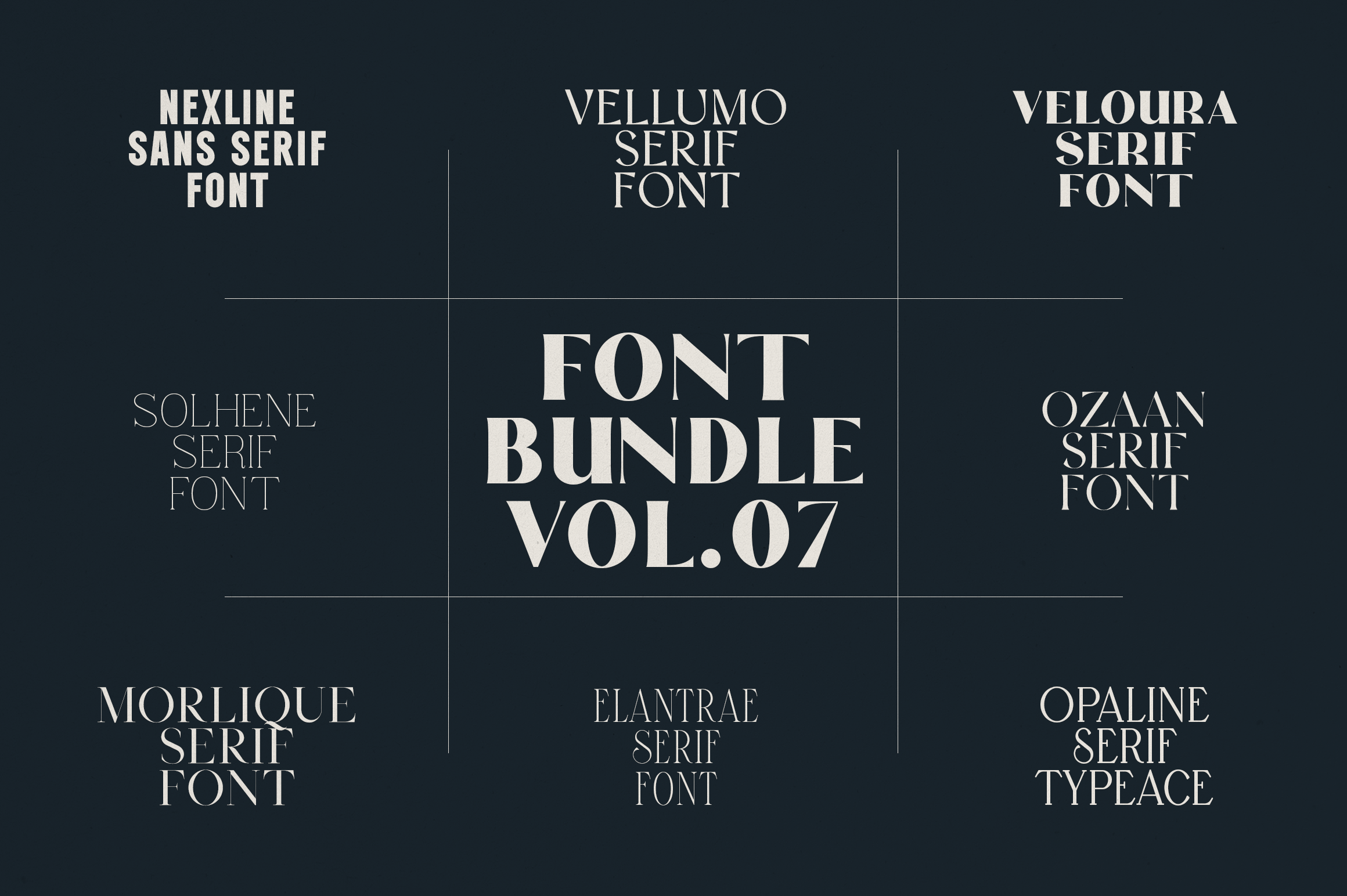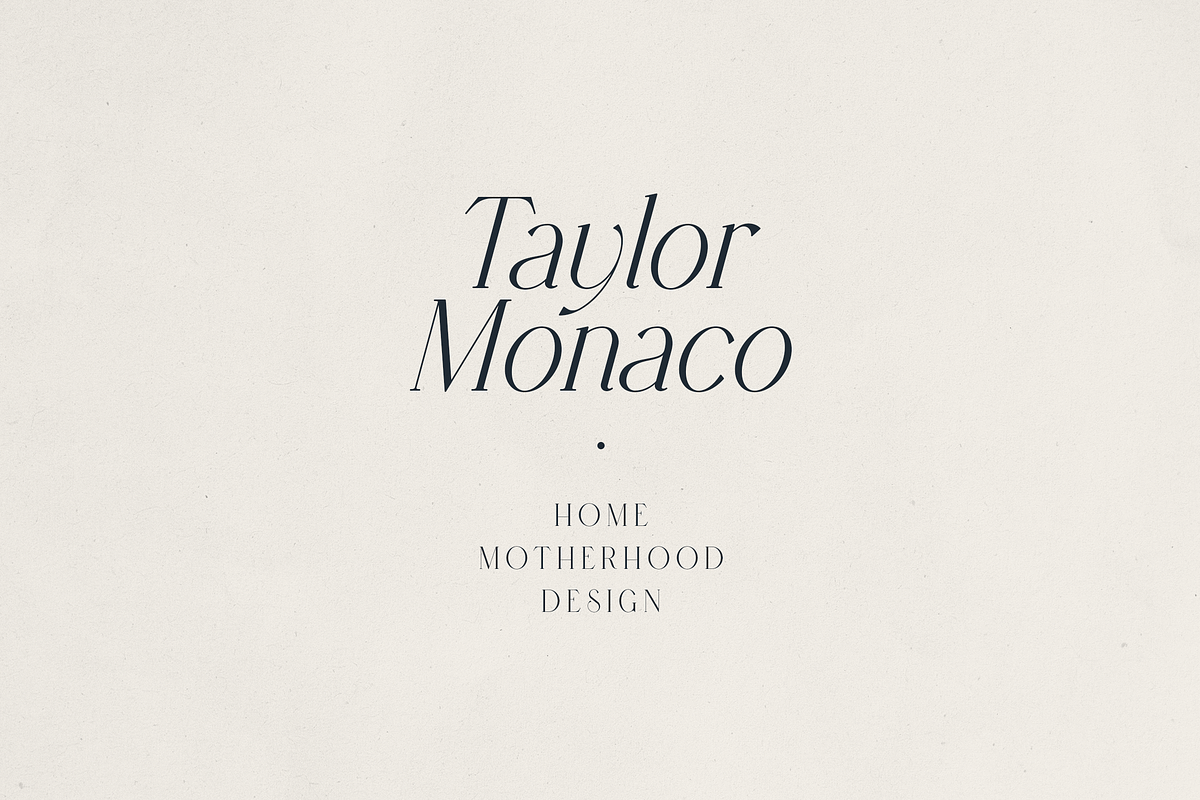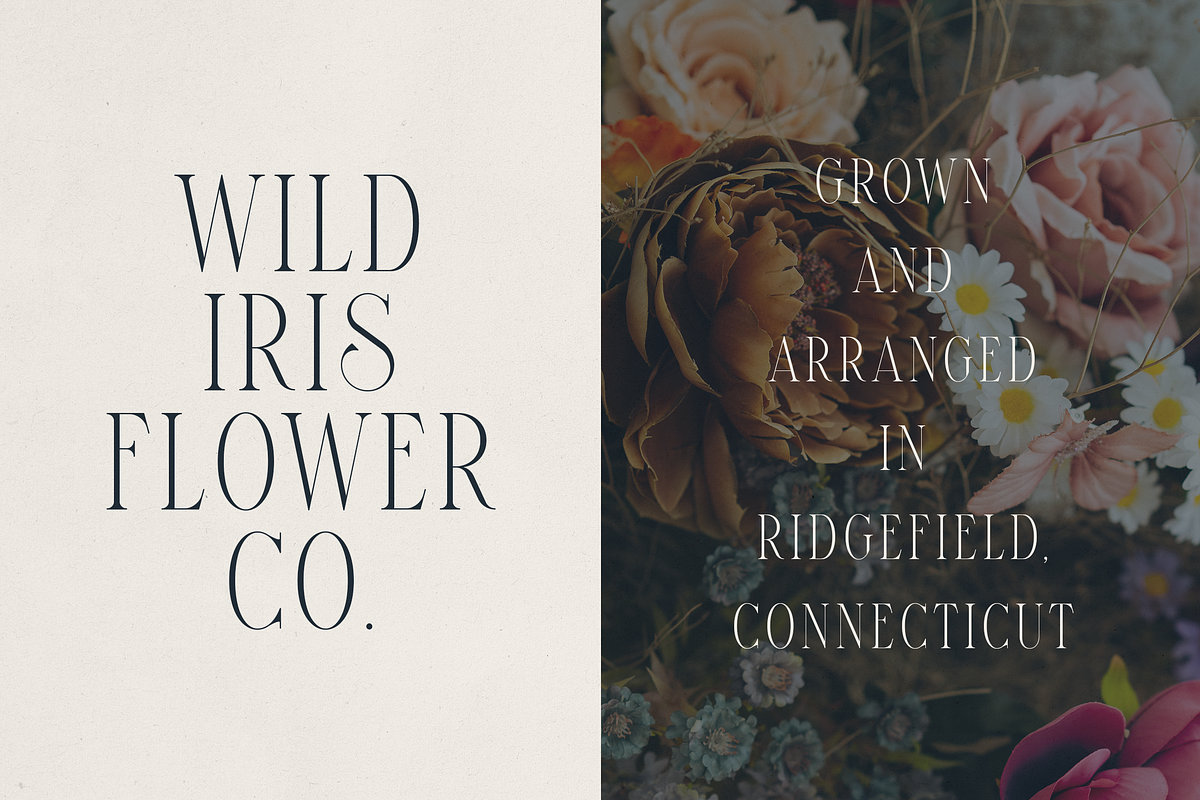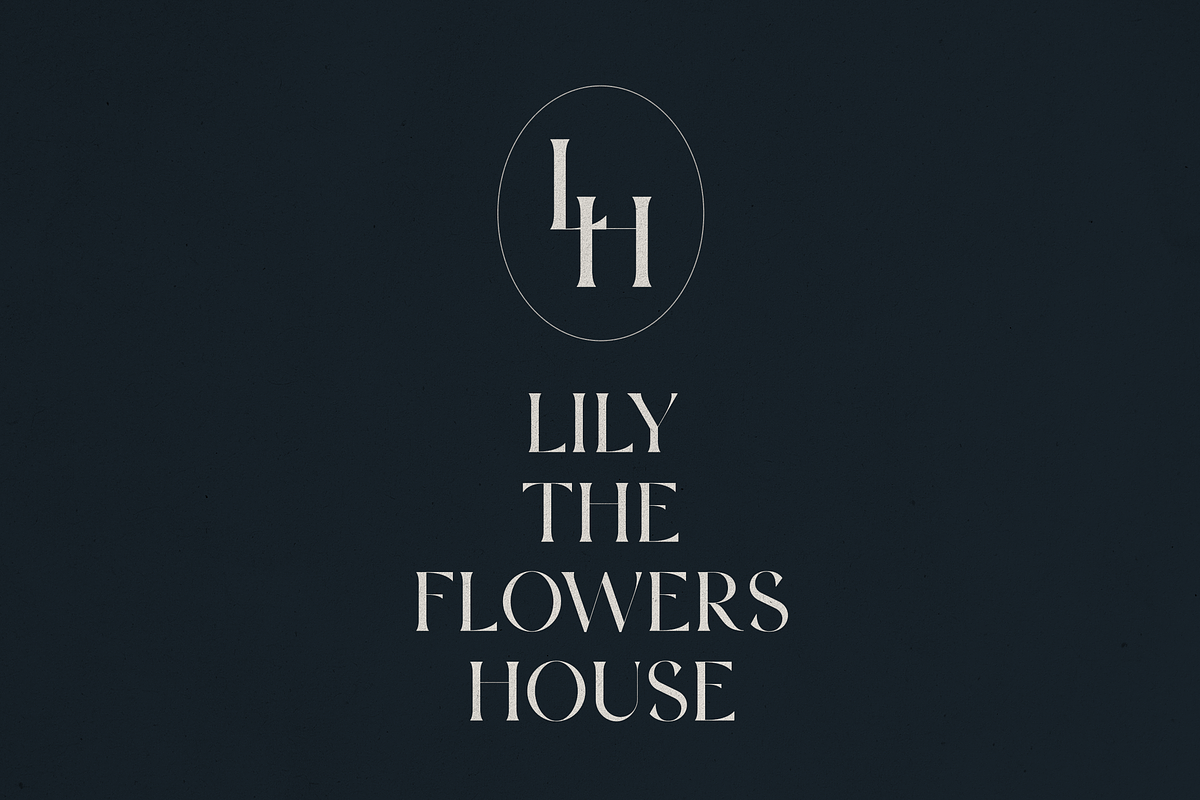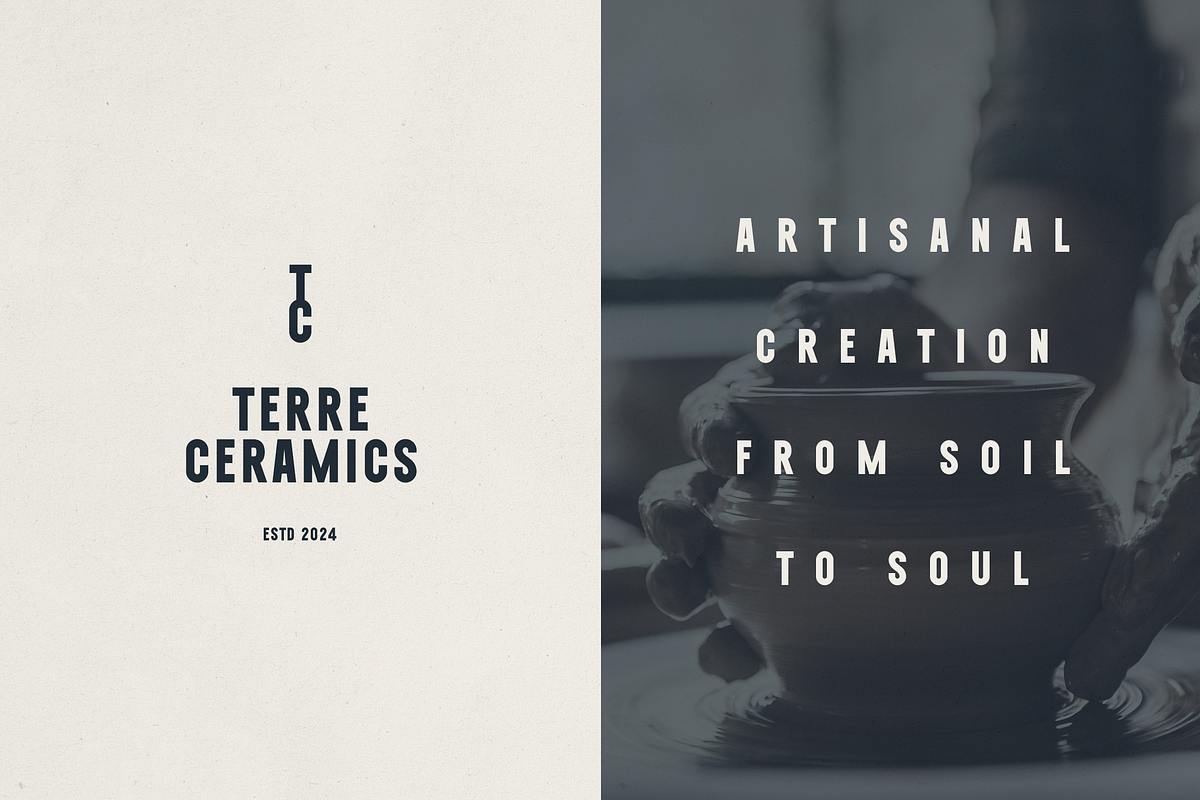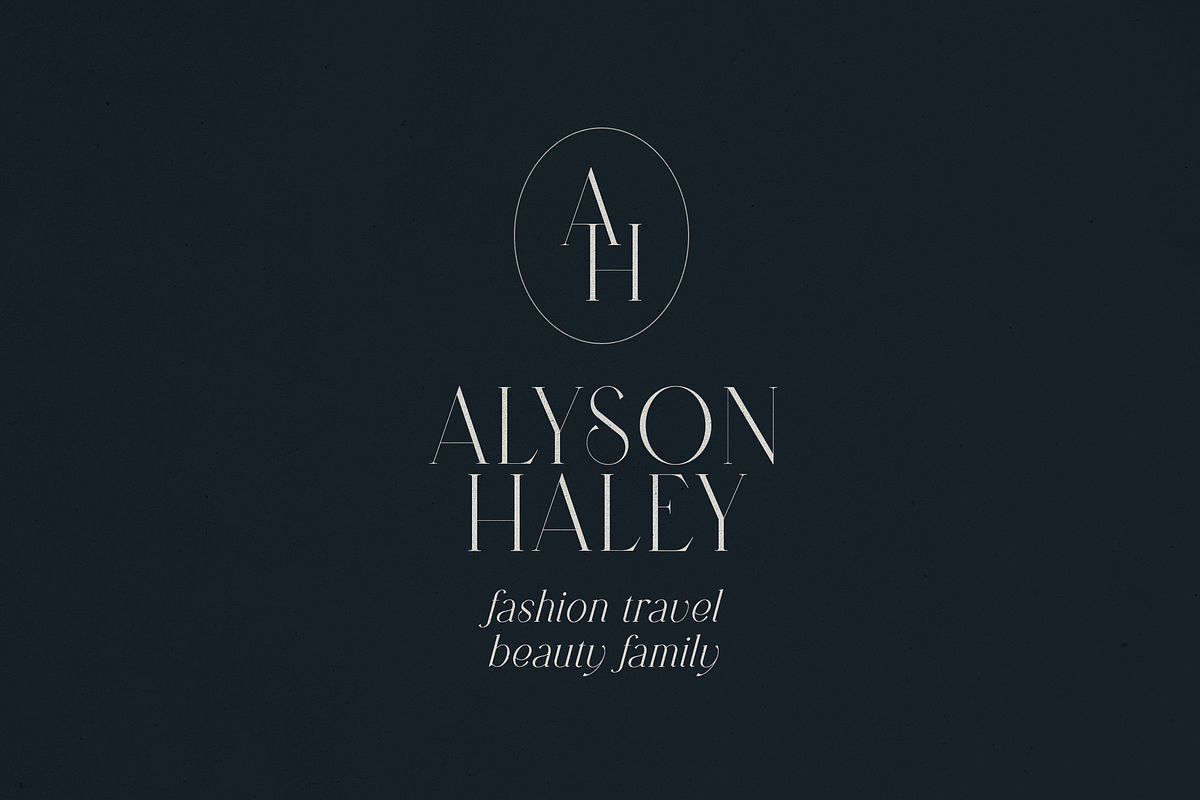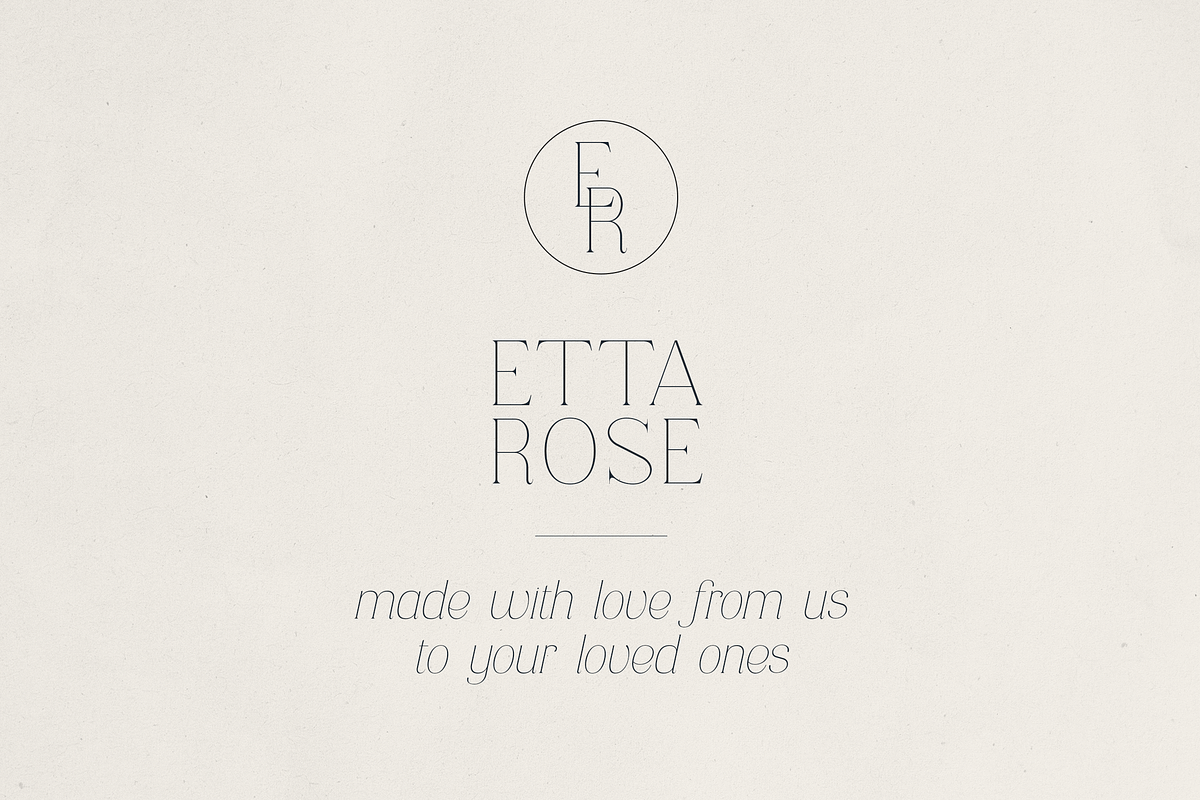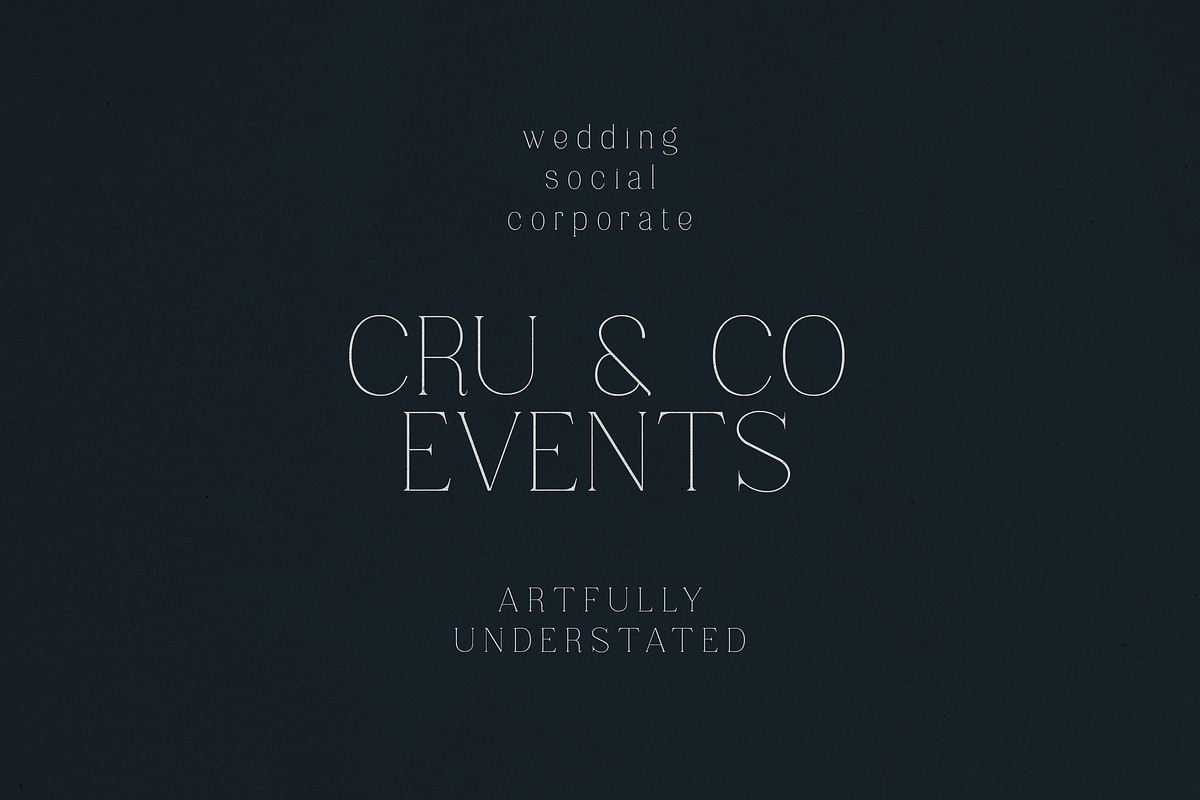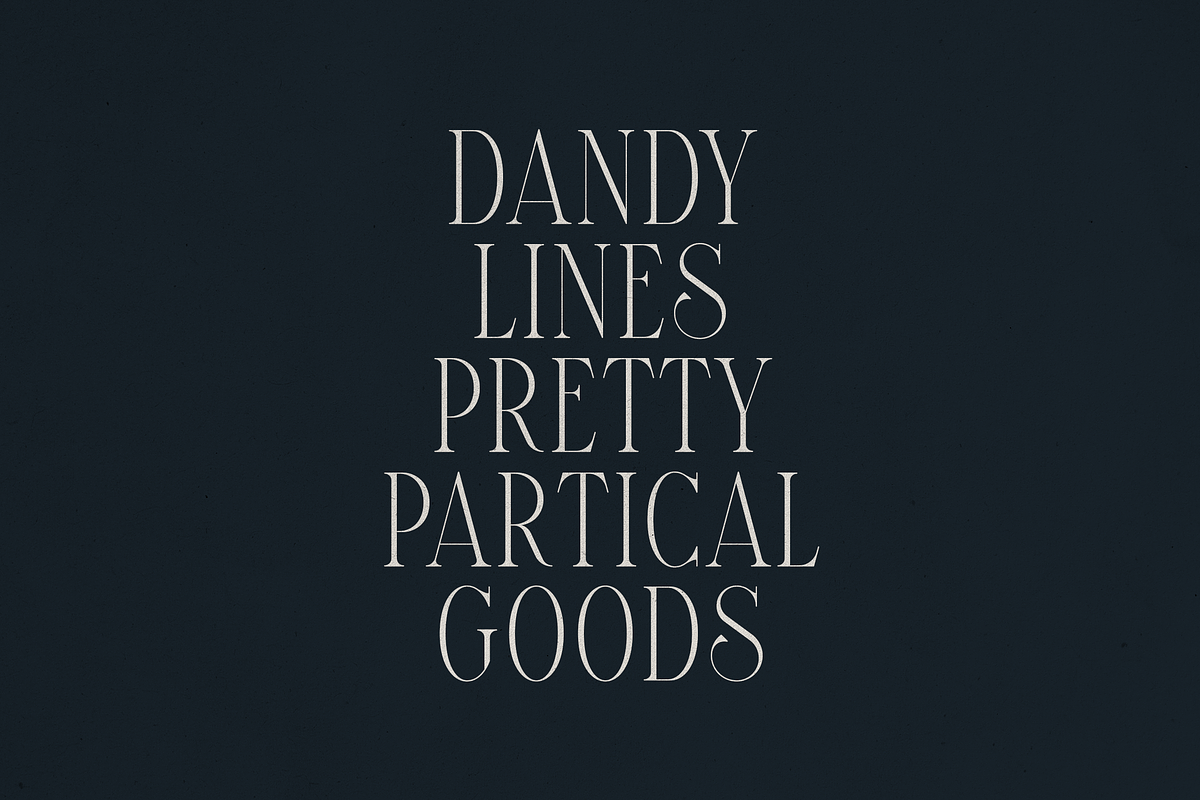
Font Bundle Vol.07 - 8 Premium Fonts
Font Bundle Vol.07 – Luxury Serif & Modern Sans Typeface Collection
Bring timeless elegance, modern sophistication, and versatile style to your design projects with Font Bundle Vol.07. This premium collection features 8 expertly crafted fonts, including luxury serifs, minimal sans serifs, and unique display typefaces, designed for branding, editorial, fashion, packaging, and digital design.
From refined high-contrast serifs perfect for magazines and wedding invitations to bold sans serifs built for logos and modern businesses, this bundle offers everything you need to elevate your creative toolkit.
Fonts Included:
- Nexline Sans Serif Font – Strong and clean, ideal for branding and packaging.
- Vellumo Serif Font – Elegant and classic for timeless designs.
- Veloura Serif Font – Bold and artistic, perfect for fashion and editorial.
- Solhene Serif Font – Minimalist and sleek, perfect for luxury brands.
- Ozaan Serif Font – Refined with modern details for upscale identities.
- Morlique Serif Font – High-end style for magazines, weddings, and social media.
- Elantrae Serif Font – Chic and versatile for lifestyle and design studios.
- Opaline Serif Typeface – Contemporary with character, great for print and digital.
Why Designers Love This Bundle:
- A mix of serif, sans serif, and display fonts for total versatility
- Perfect for logos, brand identity, magazines, packaging, and web design
- Ideal for fashion, beauty, wedding, lifestyle, and luxury projects
- Professional-quality fonts with elegant letterforms and modern details
Whether you’re a brand designer, creative agency, or entrepreneur, Font Bundle Vol.07 is built to give your work the high-end, polished look it deserves.